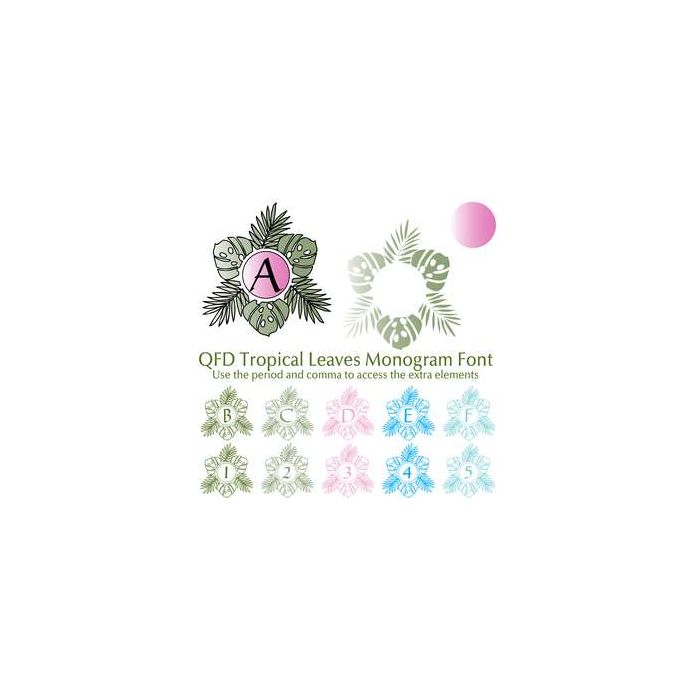
qfd tropical leaves monogram font
Perfect for cards, wall art, t-shirts, mugs and anything else you can think of. Combine this fun font with the other QFD Monogram fonts! See our detailed monograms tutorial by clicking the Instructions button. Access the extra elements by using the period and comma. If you have any questions, please feel free to contact me!